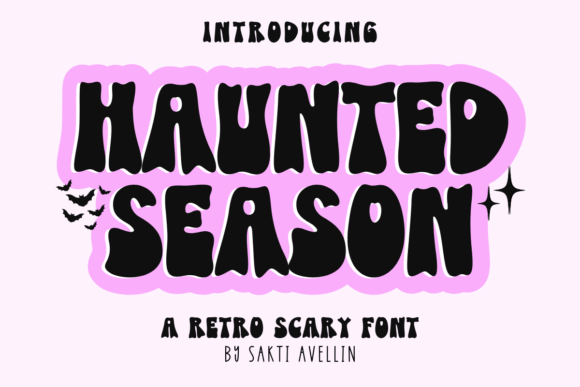
Haunted Season: A Retro Font for Spooky Charm
There is a specific kind of magic that happens when a typeface captures the right balance between nostalgia and unease. Haunted Season achieves this perfectly, standing out as a delightfully eerie retro font brimming with both fun and fright. It is not merely a collection of letters; it is a design asset that instantly transports the viewer to a time when horror was campy, colorful, and undeniably stylish. For designers, entrepreneurs, and crafters looking to inject personality into their work, this typeface offers a unique charm that generic sans serif fonts simply cannot replicate.
The Visual Personality of Haunted Season
At its core, Haunted Season is a display font designed to grab attention without shouting. Its visual characteristics are rooted in mid-century horror aesthetics, featuring uneven baselines, exaggerated serifs, and a slightly wobbly structure that mimics the look of hand-carved wood or weathered signage. Unlike a rigid modern typography style, this creative font breathes. The letterforms possess a handwritten font quality, yet they retain enough structural integrity to remain legible at larger sizes.
The appeal lies in its duality. It feels vintage, evoking the posters of classic drive-in movies, but it also carries a contemporary edge suitable for modern branding. When you apply this typeface to a project, you are immediately establishing a mood. It suggests mystery, playfulness, and a touch of the macabre. This makes it an ideal choice for those who want to move away from the standard, overused Halloween imagery and instead create something with a curated, editorial design feel. Whether used for a logo design or a headline, Haunted Season brings a narrative element to the text before a single word is read.
Applications Across Creative Industries
The versatility of this premium font extends far beyond seasonal decorations. While it is naturally suited for October projects, its aesthetic works year-round for brands that embrace the quirky, the gothic, or the nostalgic. Here is where Haunted Season truly shines in real-world applications:
- Handicrafts and DIY Projects: For hobbyists and small business owners creating physical goods, this font adds immediate value. It lends a vintage flair to tote bags and doormats, transforming simple canvas items into statement pieces. The irregularity of the letters pairs beautifully with screen printing techniques, giving handmade items an authentic, artisanal look.
- Apparel and Merchandise: Injecting personality into T-shirts and mugs is effortless with this typeface. Because it functions well as a standalone graphic, it allows for bold statements on apparel without needing complex illustrations. It is particularly effective for limited-edition drops or boutique clothing lines targeting a younger, design-conscious demographic.
- Packaging Design: In the world of packaging design, first impressions are everything. Using Haunted Season on product labels can signal that the contents inside are special, perhaps even "forbidden" or exclusive. It works exceptionally well for specialty food items, candles, or cosmetics that want to project a moody yet approachable brand identity.
- Digital and Social Media Graphics: In web design and social media graphics, headlines need to stop the scroll. This display font acts as a visual anchor, drawing the eye to key messages. It is perfect for event announcements, blog headers, or promotional banners where engagement is the primary goal.
Influencing Brand Perception and Readability
Choosing a commercial font like Haunted Season is a strategic decision that influences how an audience perceives a brand. Typography plays a crucial role in visual hierarchy. By using this typeface for headlines and keeping body copy in a neutral sans serif font, designers can create a clear distinction between the emotional hook and the informational content. This contrast ensures that the message is memorable while maintaining professionalism.
However, readability must always be a priority. As a display font, Haunted Season is not intended for long paragraphs of text. Its decorative nature means that at small point sizes, the details can blur, reducing legibility. To maintain consistency and recognition, it should be reserved for titles, logos, and short quotes. When used correctly, it enhances audience engagement by signaling that the brand has a distinct voice. It tells the consumer, "We don't take ourselves too seriously, but we care about our aesthetic."
This approach to brand identity helps businesses stand out in crowded markets. A coffee shop using this font for its "Spiced Pumpkin Latte" sign creates a stronger emotional connection than one using a standard script font. It builds anticipation and sets the tone for the customer experience. The font becomes part of the story, making messages truly memorable and ensuring that the brand remains top-of-mind.
Practical Guidance for Designers and Creators
For those considering Haunted Season for their next project, careful evaluation is key. Before committing, review the included styles to ensure they meet your specific needs. Does the font family offer different weights or alternate characters? These variations can significantly expand the utility of the typeface, allowing for more dynamic layouts.
Whether you are a publisher looking to spice up an editorial layout, a marketer crafting a campaign around mystery and intrigue, or a crafter selling handmade goods, this typeface offers a unique tool in your arsenal. It bridges the gap between retro nostalgia and modern creativity. Prepare to be bewitched by its captivating character, and let it guide your next design toward something truly unforgettable. With Haunted Season, every project becomes an opportunity to tell a story that resonates with style and substance.